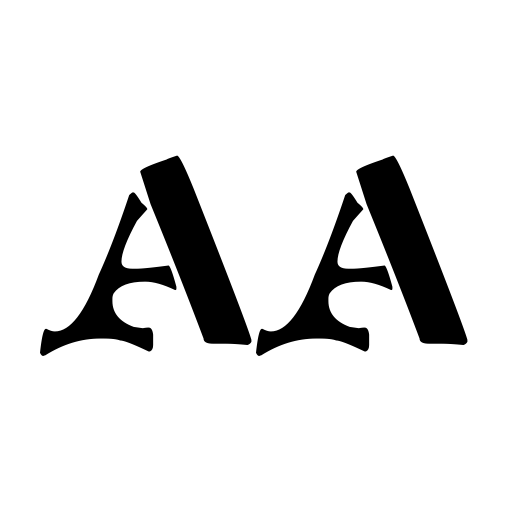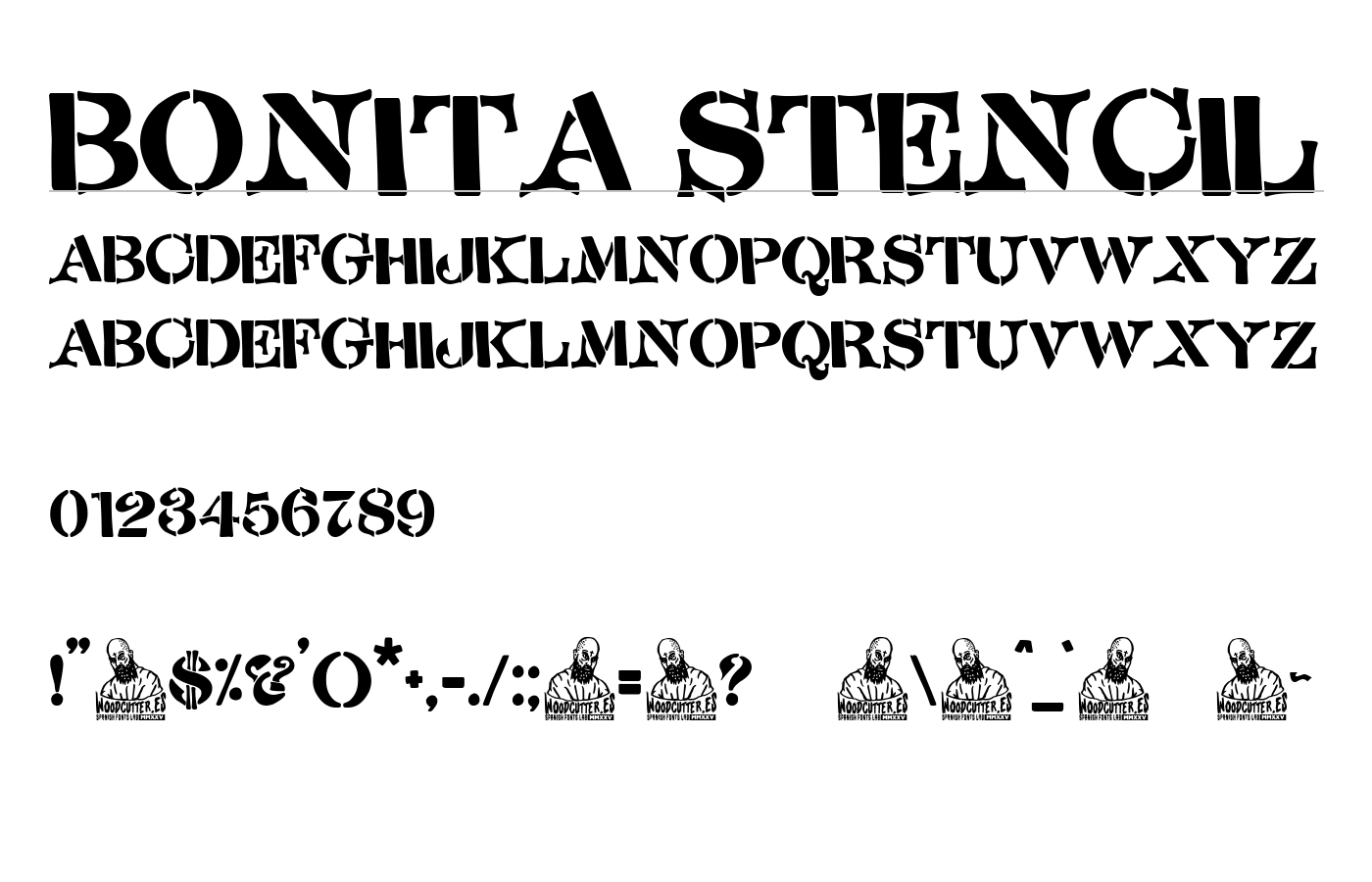
Bonita Stencil is a bold serif display font with a distinctive stencil style, featuring strong, bracketed serifs and high contrast between thick and thin strokes. Its uppercase letters project a vintage, industrial feel with charming irregularities that add character and a handcrafted touch. Ideal for eye-catching headlines, posters, and branding that want to evoke a rugged yet stylish presence, Bonita Stencil brings a unique blend of classic and edgy personality.
Bonita Stencil Font
About Bonita Stencil Font
| Font family | Bonita Stencil Font |